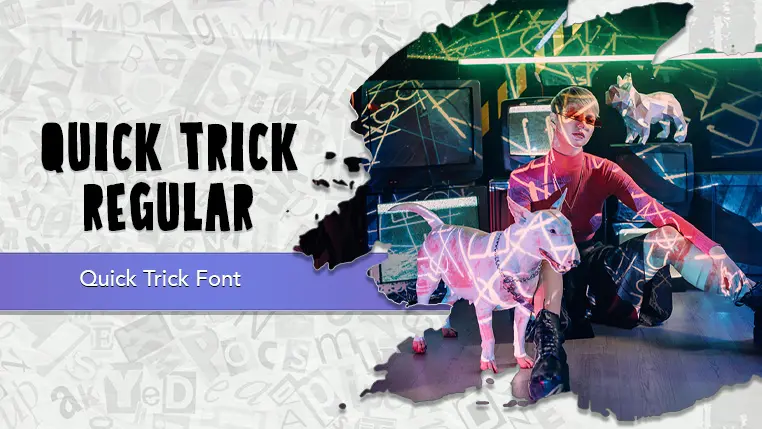
The Quick Trick font family may be ideal for you if you enjoy working on an artistic design project. The lively, expressive look of this typeface, which was created by Eko Bimantara, makes it ideal for Headlines and titles. The font's unique personality can be a great fit for brands that want to appear modern, energetic, and a little bit quirky. It's suitable for products and services aimed at a younger or creative audience. The playful, handcrafted feel of Quick Trick works well for product packaging, t-shirt designs, and other merchandise. Its distinctive style is perfect for creating engaging and memorable visuals for social media posts. and other light-hearted visual projects.
Regular are the one primary font styles of the Quick Trick font family. You may build dynamic, visually appealing text layouts with the distinct flair that each style offers. With crisp, readable lines and a relaxed tone.